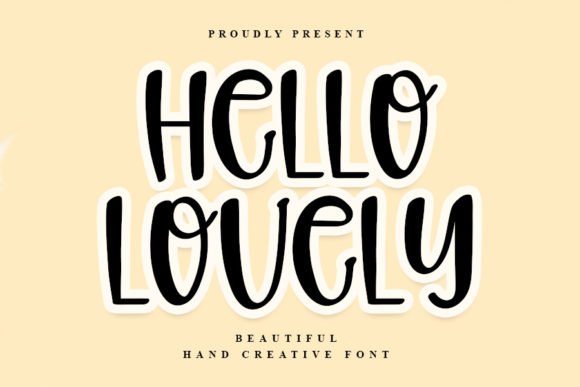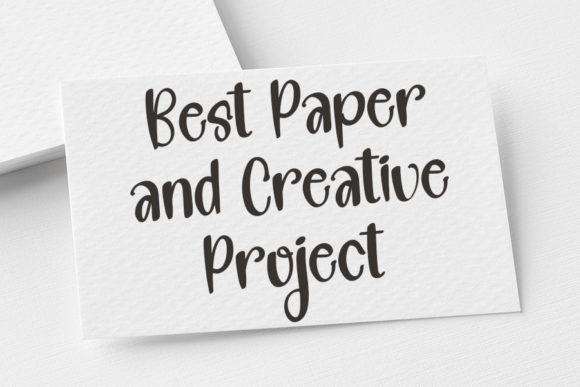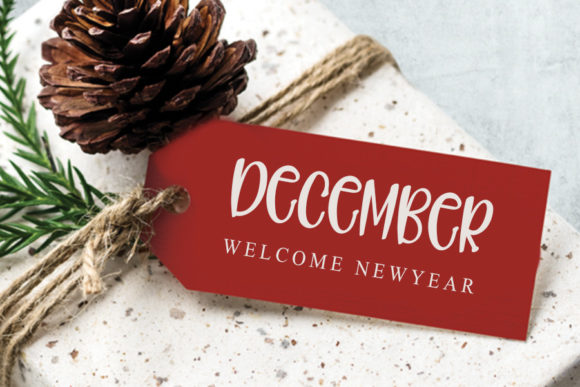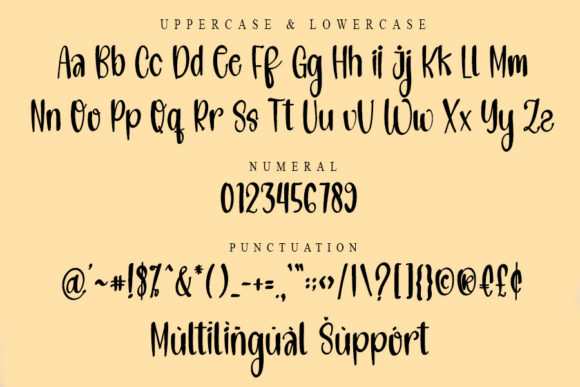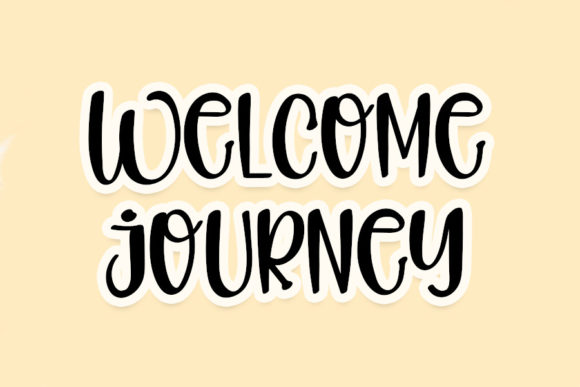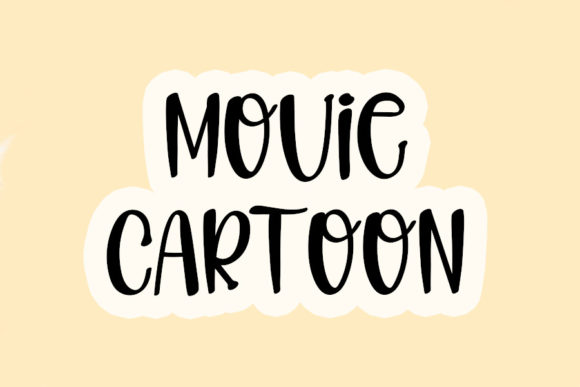
Discover the Magic of Hello Lovely Font
You’ve spent hours brainstorming the perfect design concept, pouring over sketches and mockups, and finally, the moment of truth arrives – it’s time to choose the perfect font. And then, like a breath of fresh air, you stumble upon the Hello Lovely Font. This charming handwritten font is more than just a pretty face; it’s the key to unlocking the full potential of your design.
With its unique and beautiful touch, the Hello Lovely Font is the ideal choice for creating eye-catching logos, branding, and quotes. Whether you’re a seasoned designer or just starting out, this font is sure to bring a smile to your face and a sparkle to your designs.
What sets the Hello Lovely Font apart is its ability to add a personal touch to any design. Its playful and smart-looking style makes it a valuable asset for designers looking to create memorable and engaging visuals.
Hello Lovely Font Key Features
- Unique Characteristics: The font features a unique, hand-drawn aesthetic with elegant flourishes and subtle textures, adding a touch of sophistication to any design.
Review of Hello Lovely Font
I’ve had the chance to work with the Hello Lovely Font and I have to say it’s been a delightful experience. The font’s quirky, hand-drawn feel ✨ immediately caught my attention, making it perfect for projects that need a touch of personality. The font family is also quite extensive, offering a wide range of weights and styles ✨.
One of the things I appreciate most about Hello Lovely is its versatility ✨. It’s suitable for everything from branding and advertising to digital products and editorial content. The font’s unique character also makes it a great choice for creating eye-catching headlines ✨.
- ⚠️ The font may not be suitable for body text, as its quirky feel can be overwhelming when used extensively.
- ⚠️ Some users may find the font’s irregularities distracting, especially in longer blocks of text.
- ⚠️ The font’s extensive range of weights and styles can be overwhelming for designers who are not familiar with the font family.
Overall, I’m quite impressed with the Hello Lovely Font. Its unique character and extensive range of styles make it a valuable addition to any designer’s toolkit. While it may not be suitable for every project, it’s definitely worth considering for those that need a touch of personality and whimsy ✨.
For optimal results, use the “Hello Lovely Font” for titles, headings, and emphasis in your designs. It’s also suitable for creating invitations, social media graphics, and other promotional materials.
Alternatives to Hello Lovely Font for Designers
Great Vibes Font is a beautiful, elegant script font that works well for invitations, wedding designs, and any other occasion where a touch of sophistication is needed. It has a similar feel to Hello Lovely Font but with a more refined and classic look.
Comparison: While both fonts have a similar feel, Great Vibes Font is more refined and classic, making it a better choice for formal designs. Hello Lovely Font has a more playful and whimsical feel.
Carolyna Pro is a modern script font that is perfect for fashion, beauty, and lifestyle designs. It has a bold and elegant feel that works well for headings and titles. It’s a great alternative to Hello Lovely Font for designers who want a more modern and edgy look.
Q: What is the recommended font size and line spacing for Hello Lovely Font?
For optimal readability, we recommend using Hello Lovely Font at sizes between 12pt and 24pt. For body text, a line spacing of 1.2-1.5 times the font size is recommended. This will help maintain a clear and legible layout in your designs.